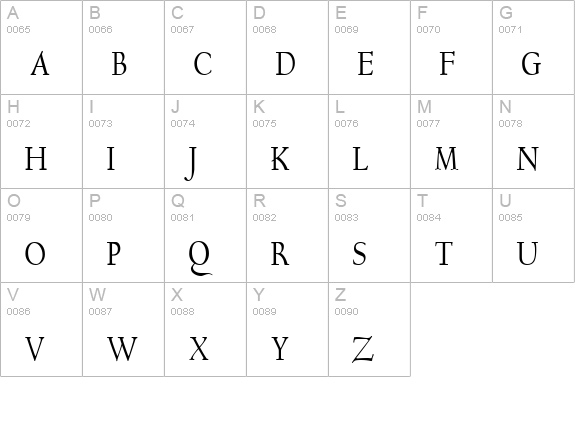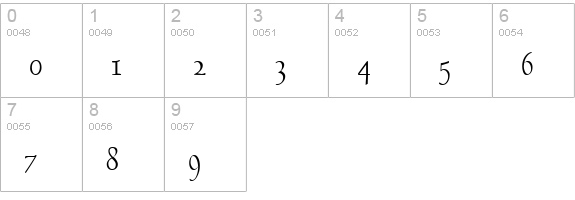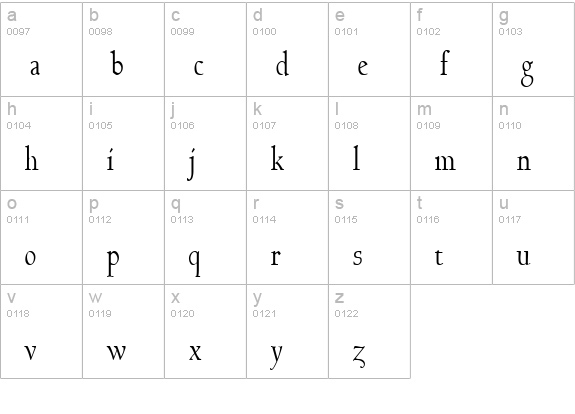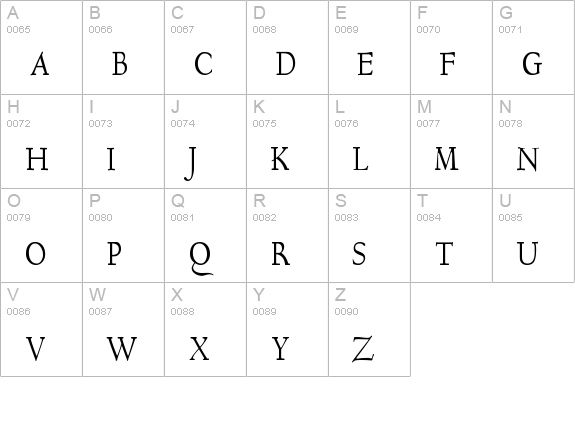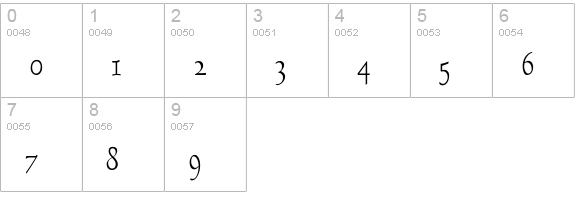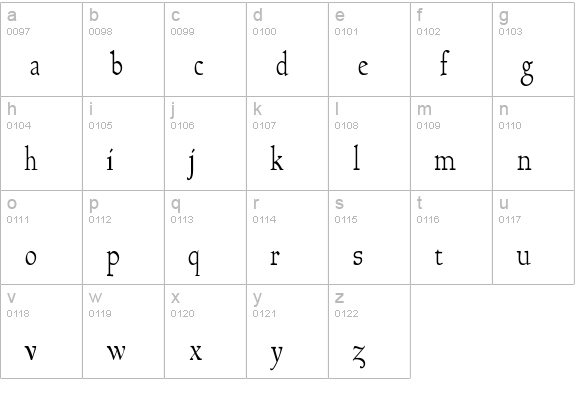
Bravo-Condensed Normal is the standard, neutral, condensed-width variant in the Bravo typeface family \xE2\x80\x94 well suited to general body text, paragraphs, and standard typographic work.
Bravo-Condensed Normal font is a sleek and modern typeface that exudes sophistication and elegance. Its condensed design makes it perfect for headings, titles, and other display purposes where space is limited. The sharp lines and clean curves give Bravo-Condensed Normal a contemporary and polished look that is sure to make your designs stand out. What's even better is that Bravo-Condensed Normal font is available for free download at FontsMarket.com. So whether you're a designer looking to add a touch of class to your projects or a business owner wanting to elevate your branding, Bravo-Condensed Normal font is a fabulous choice that won't cost you a penny. Download it today and see the difference it can make in your designs!